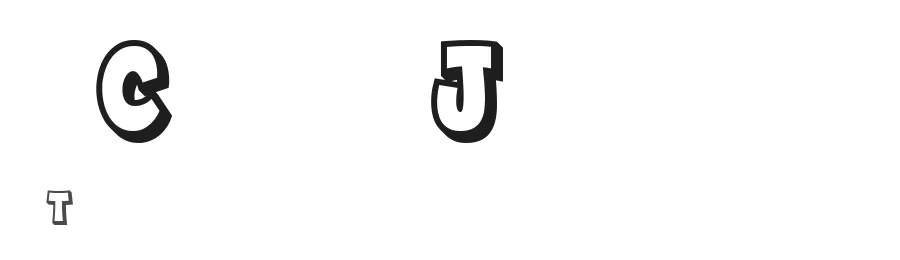
About Radioactive Granny Font
Radioactive Granny is a decorative font designed by Blambot. It includes 108 glyphs, a regular weight, TTF (TrueType) format, and 107 languages. Radioactive Granny is free to download; check the license details on this page before commercial use. Decorative fonts like Radioactive Granny work best for logos, posters, packaging, and standout headlines.
Radioactive Granny Font is a decorative font that shines as a display or heading face. Pair it with a clean sans-serif or serif font for body text β the contrast creates a clear hierarchy while the two styles stay balanced and easy to read.
Radioactive Granny Font
by Blambot
Radioactive Granny Font is a decorative typeface by Blambot, ideal for logos, invitations, branding, and creative projects.